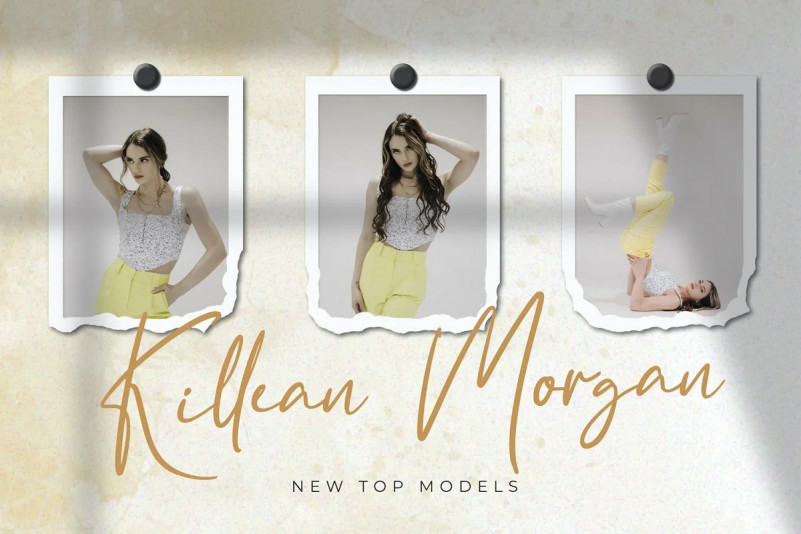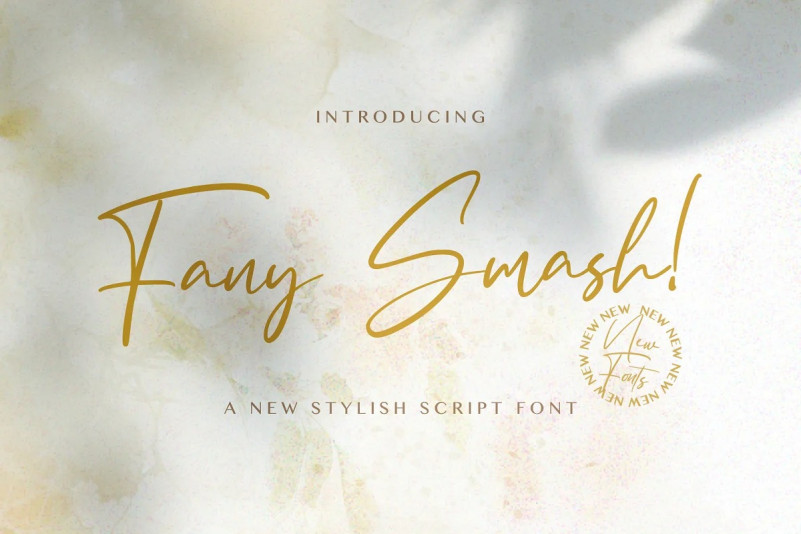
Fany Smash Handwritten Font
This font designed by StringLabs is a flowing, stylish and neat handwritten font. It has beautiful and well balanced characters and as a result, it matches a wide pool of designs. Add it to your most creative ideas and notice how it makes them come alive!